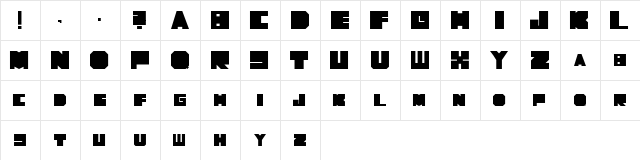
Resurrected! Regular
Design Context for Resurrected! Typeface
Resurrected! is a composed and adaptable typeface that performs quietly and consistently across a wide range of design contexts.